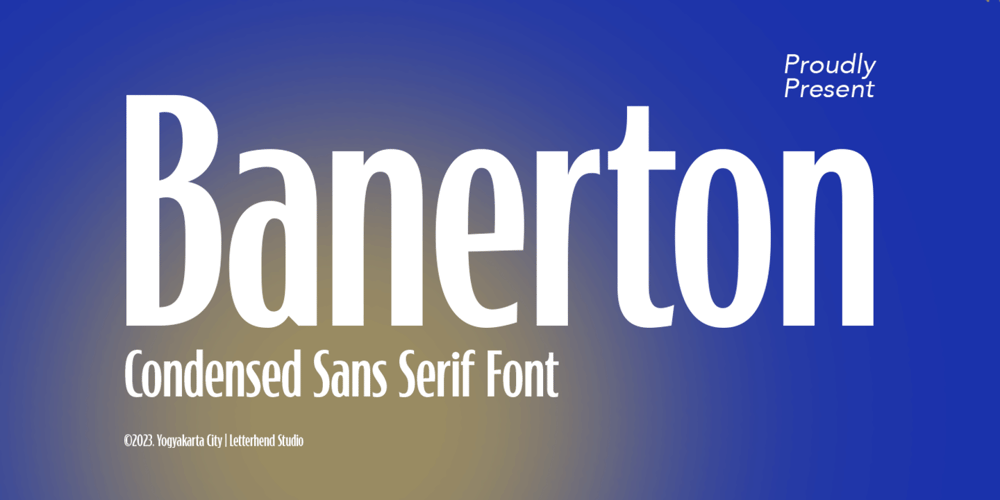
Banerton Font Family was designed by Hendry Juanda and published by Letterhend. Banerton contains 2 styles and family package options. Introducing Banerton, the condensed sans serif font that combines a clean, modern aesthetic with a casual vibes. Its minimalistic design and semi bold lettering make it perfect for everything from labels, logos, magazines, books, greeting / wedding cards, packaging, fashion, make up, stationery, novels, labels or any type of advertising purpose.Features : Uppercase & lowercase Numbers and punctuation Alternates & Ligatures Multilingual PUA encoded We highly recommend using a program that supports OpenType features and Glyphs panels like many of Adobe apps and Corel Draw, so you can see and access all Glyph variations.